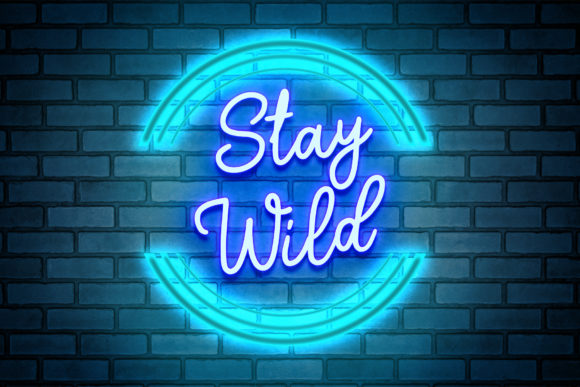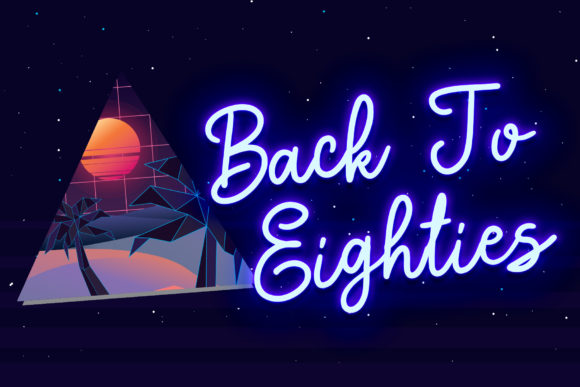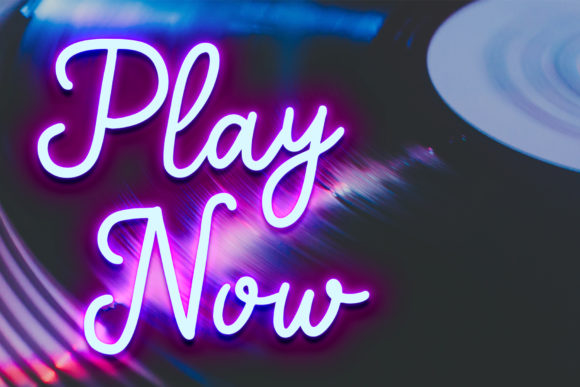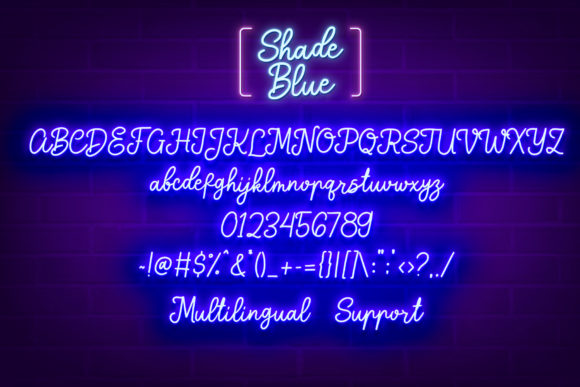
Introduction to Shade Blue Font
Shade Blue is a retro styled script font.
It looks great on any project, social media post, advertising, business, poster and much more .
Key Features of Shade Blue Font